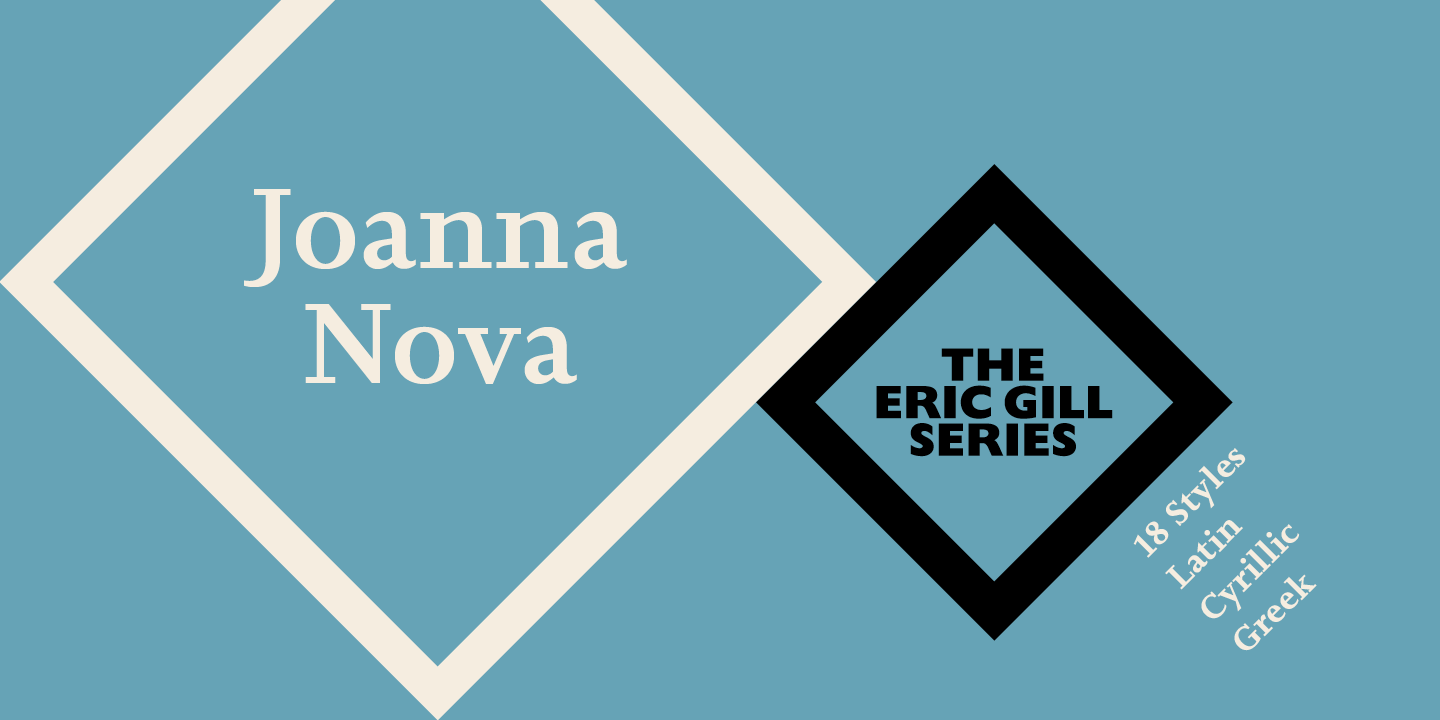
Joanna Nova Font is perfect for academic publishing houses, scholarly journal layouts, university press materials, cultural institution branding, intellectual magazine designs, literary criticism publications, philosophical treatises, art history textbooks, classical studies programs, contemporary academic conferences, and any project that requires refined scholarly character with modern intellectual sophistication.
What makes Joanna Nova Font exciting is its masterful evolution of classical typography traditions into contemporary academic excellence through elegantly modernized letterforms that honor scholarly heritage while embracing digital age functionality. This distinguished typeface features refined proportions with intellectual clarity that convey academic authority while maintaining exceptional readability for complex scholarly content. The font's nova character adds instant scholarly credibility and modern academic appeal to any design, making it perfect for institutions bridging traditional scholarship with contemporary research excellence.
Joanna Nova Font comes in multiple font families including Regular, Bold, Light, Italic, Medium, and Academic variations, providing designers with comprehensive options to create scholarly compositions and achieve the perfect intellectual aesthetic for education-focused design projects.
Whether you're developing academic institution branding, creating scholarly publication materials, or designing intellectual conference campaigns, Joanna Nova Font Free Download offers the perfect solution for projects demanding authentic scholarly character and academic sophistication. This refined typeface excels in both print and digital applications where intellectual presence is essential, ensuring your designs communicate academic excellence and scholarly authority. The elegant character and academic styling of Joanna Nova Font make it an indispensable tool for designers who prioritize scholarly publishing, academic institutions, and intellectual communication excellence in their typographic selections.